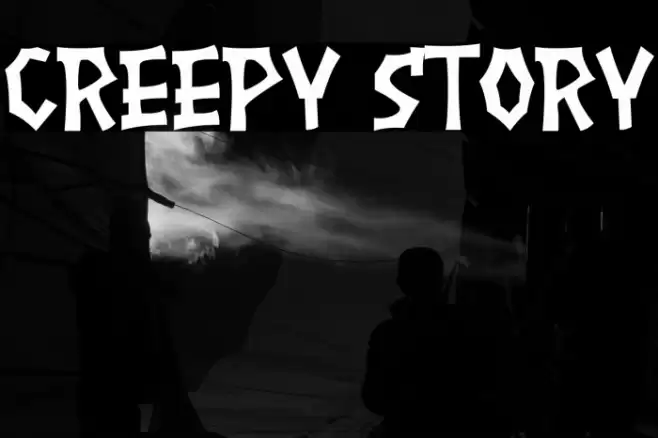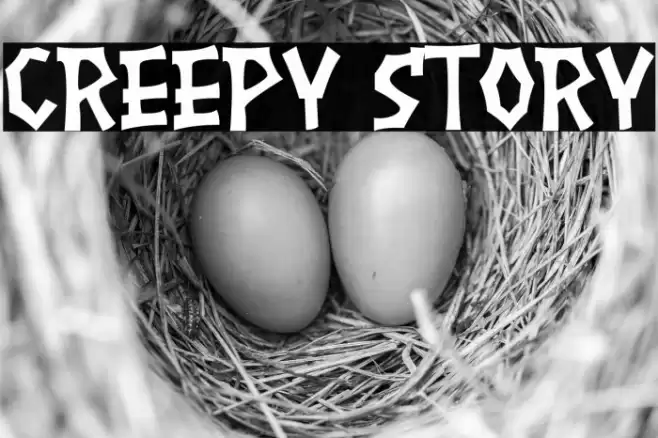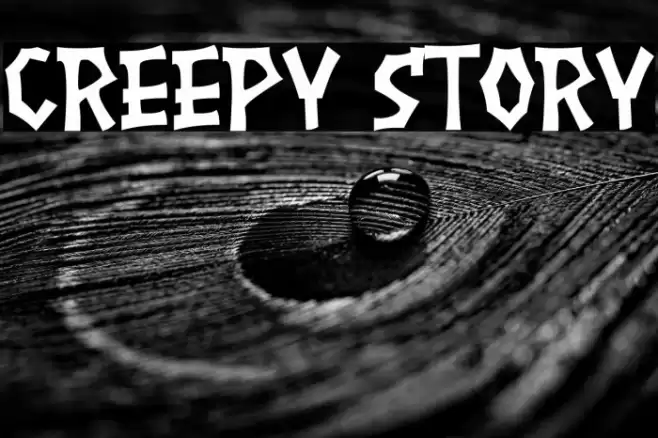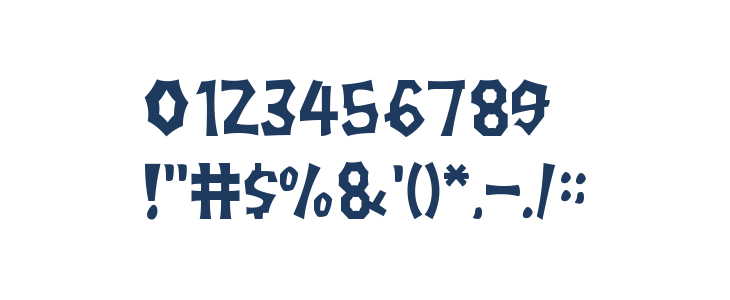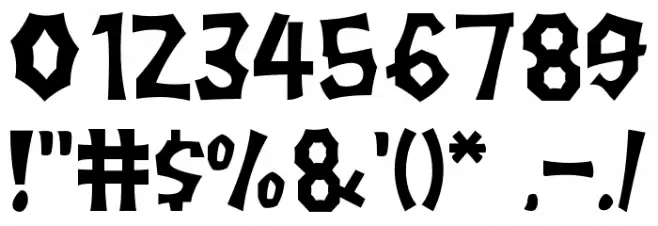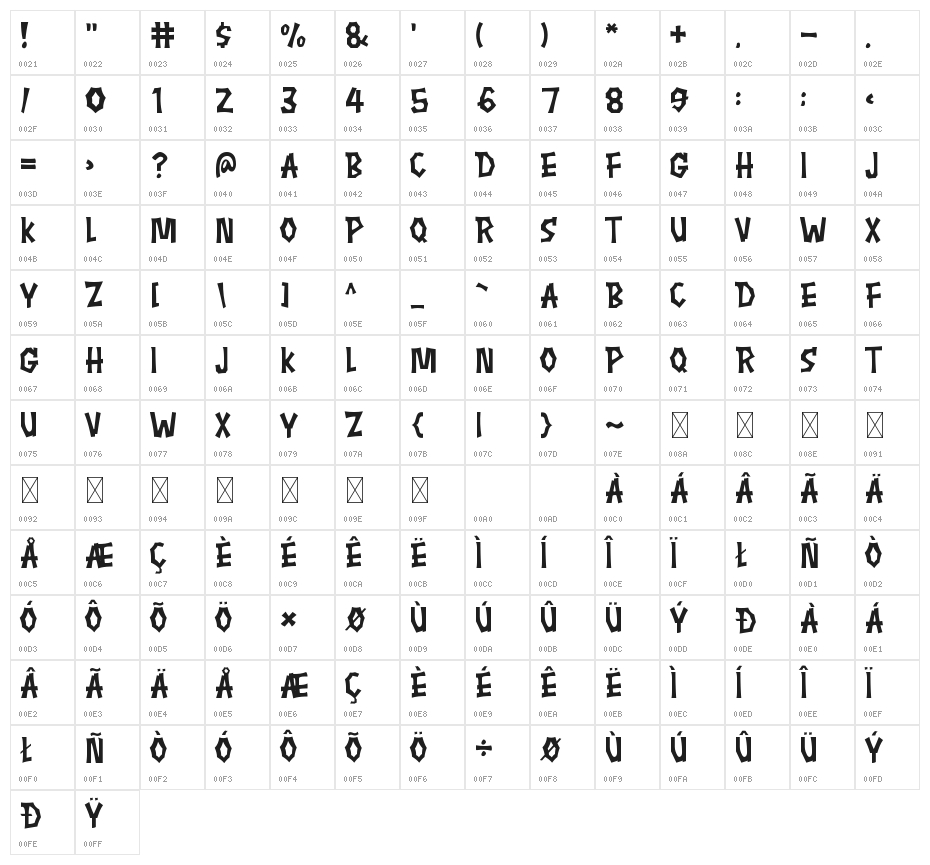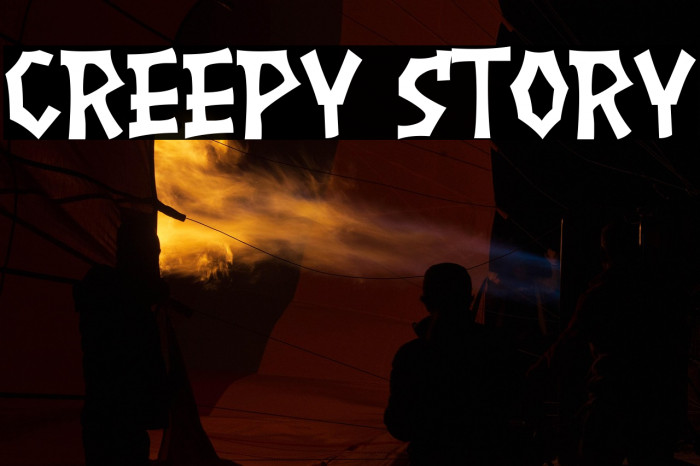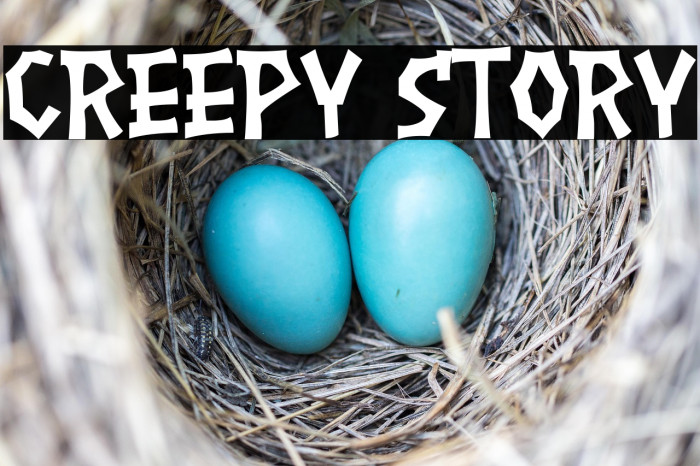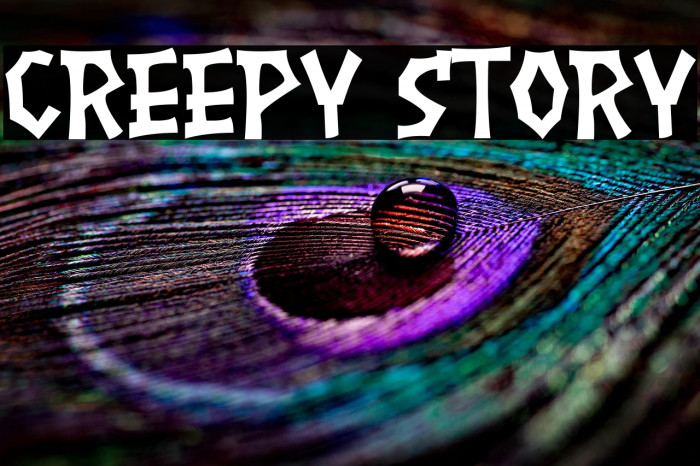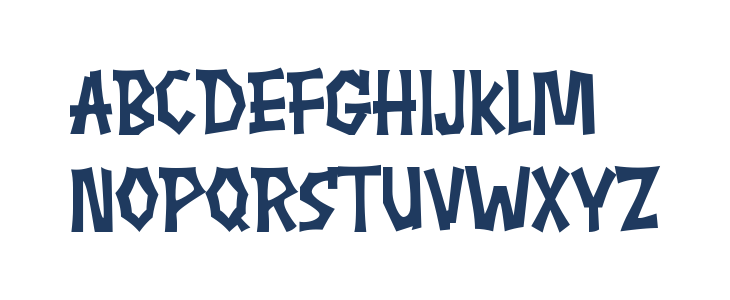
Creepy Story Font
Creepy Story Description
This font exudes a quirky and eerie vibe, characterized by its jagged and irregular letterforms. The uppercase and lowercase letters share a consistent style, with sharp angles and uneven strokes that create a sense of unease. The numbers and special characters maintain this unsettling aesthetic, making it ideal for projects that require a spooky or unconventional look. The bold, thick strokes ensure high visibility, while the irregular shapes add a playful yet creepy touch. This font is perfect for Halloween-themed designs, horror movie posters, or any creative project that seeks to evoke a sense of mystery and intrigue.
A bold, jagged font with an eerie, playful style from Uncategorized fonts.
- Proposed Projects: Halloween invitations, horror movie posters, spooky event flyers, themed merchandise.